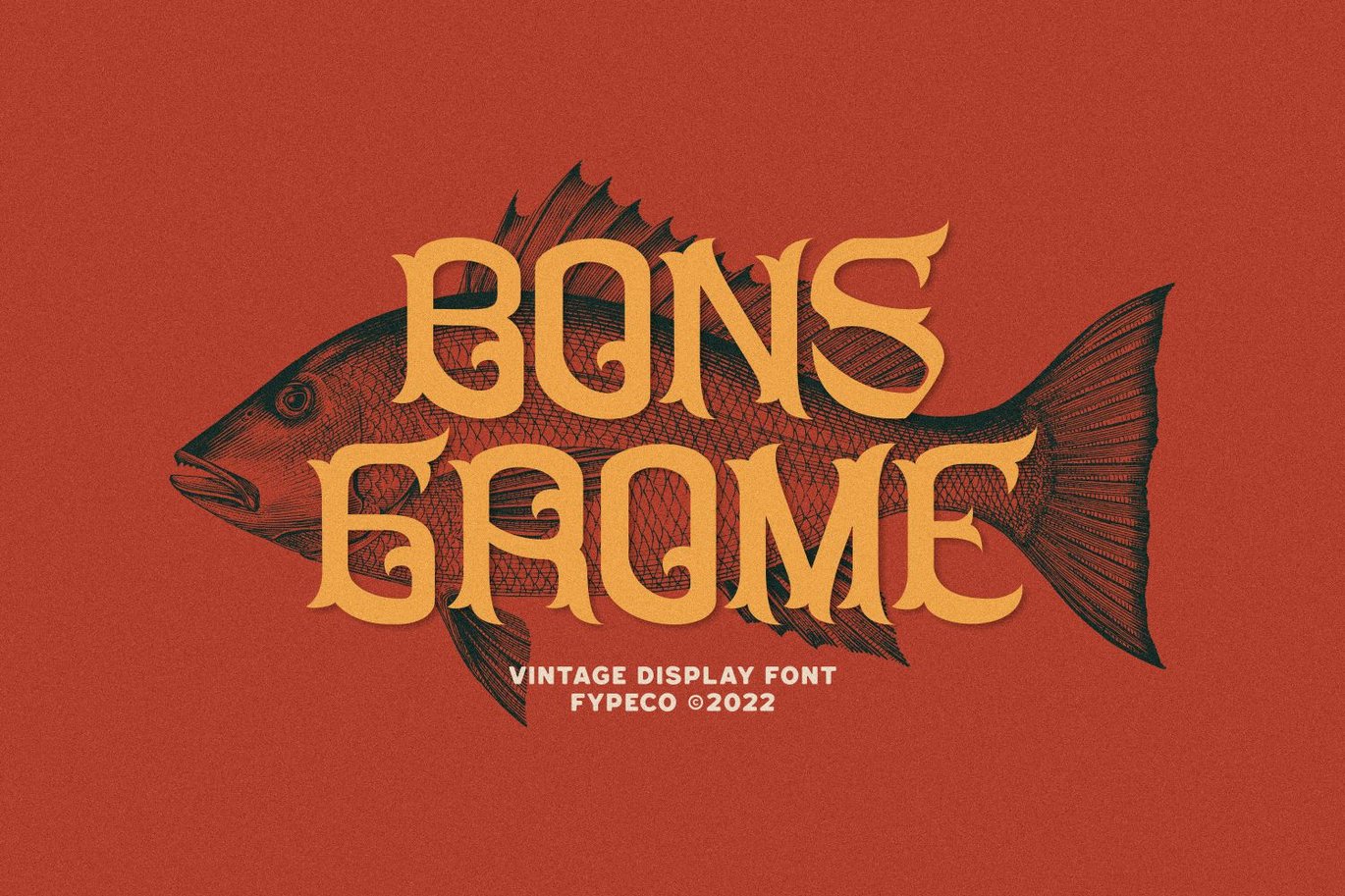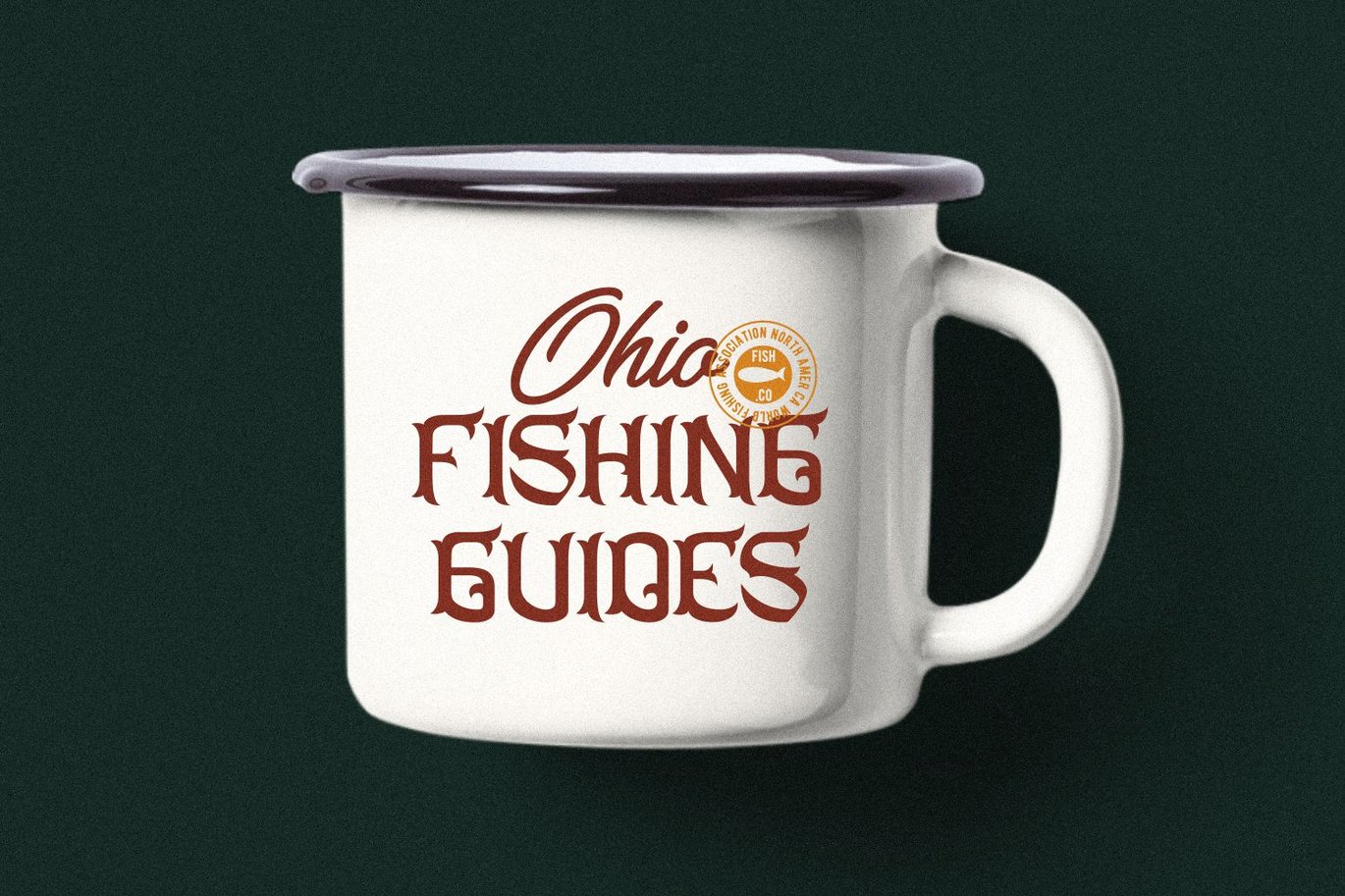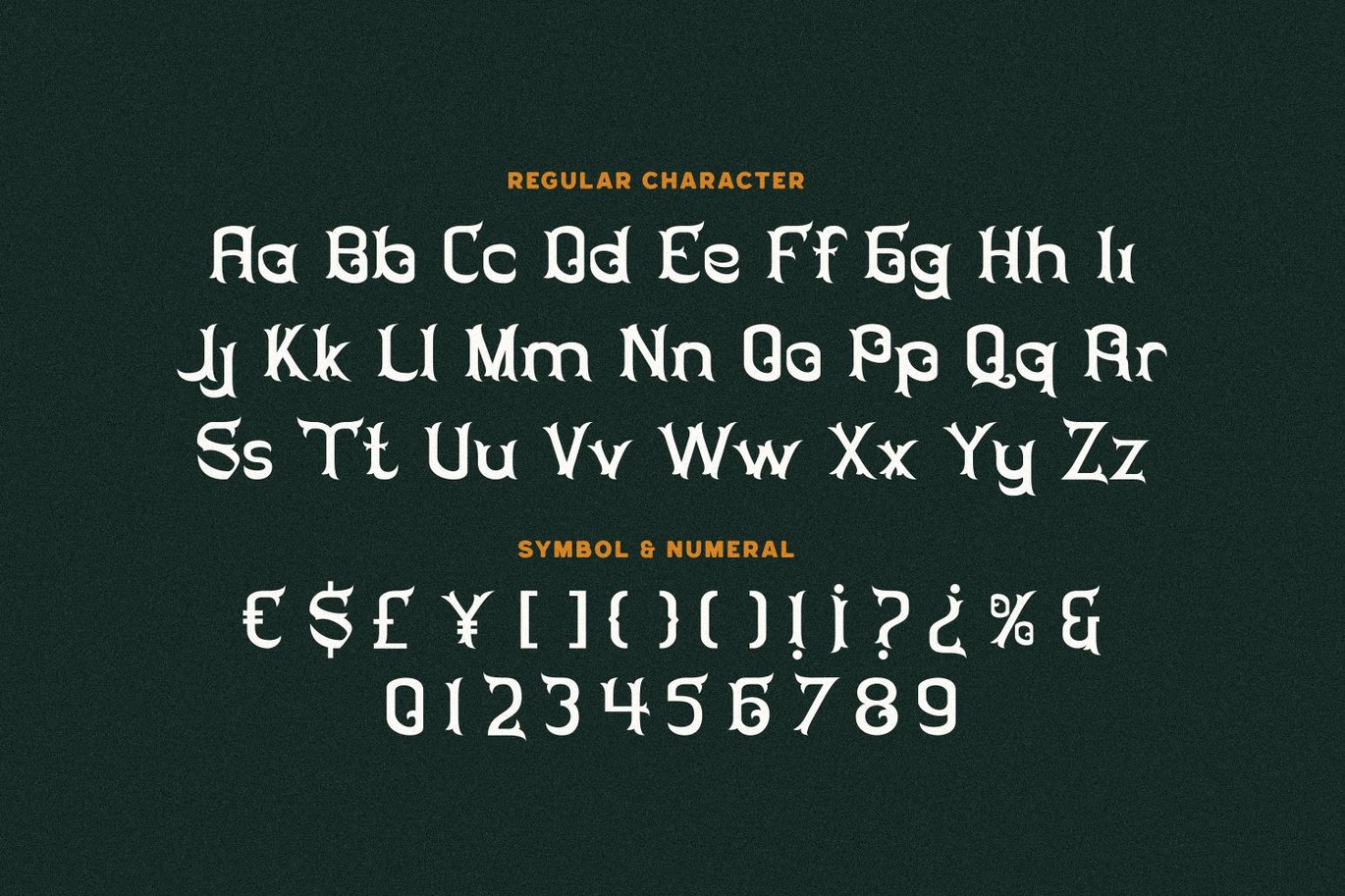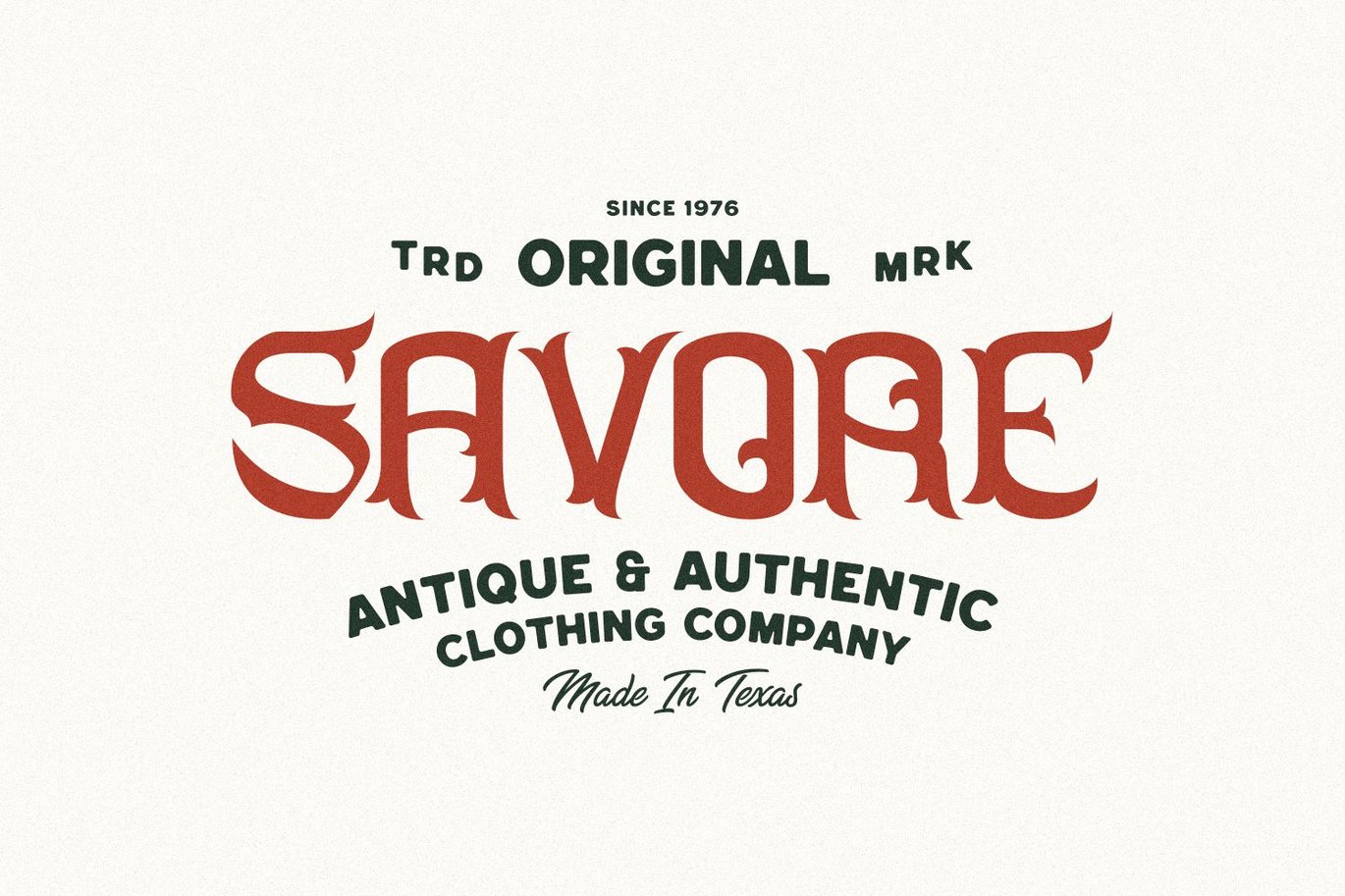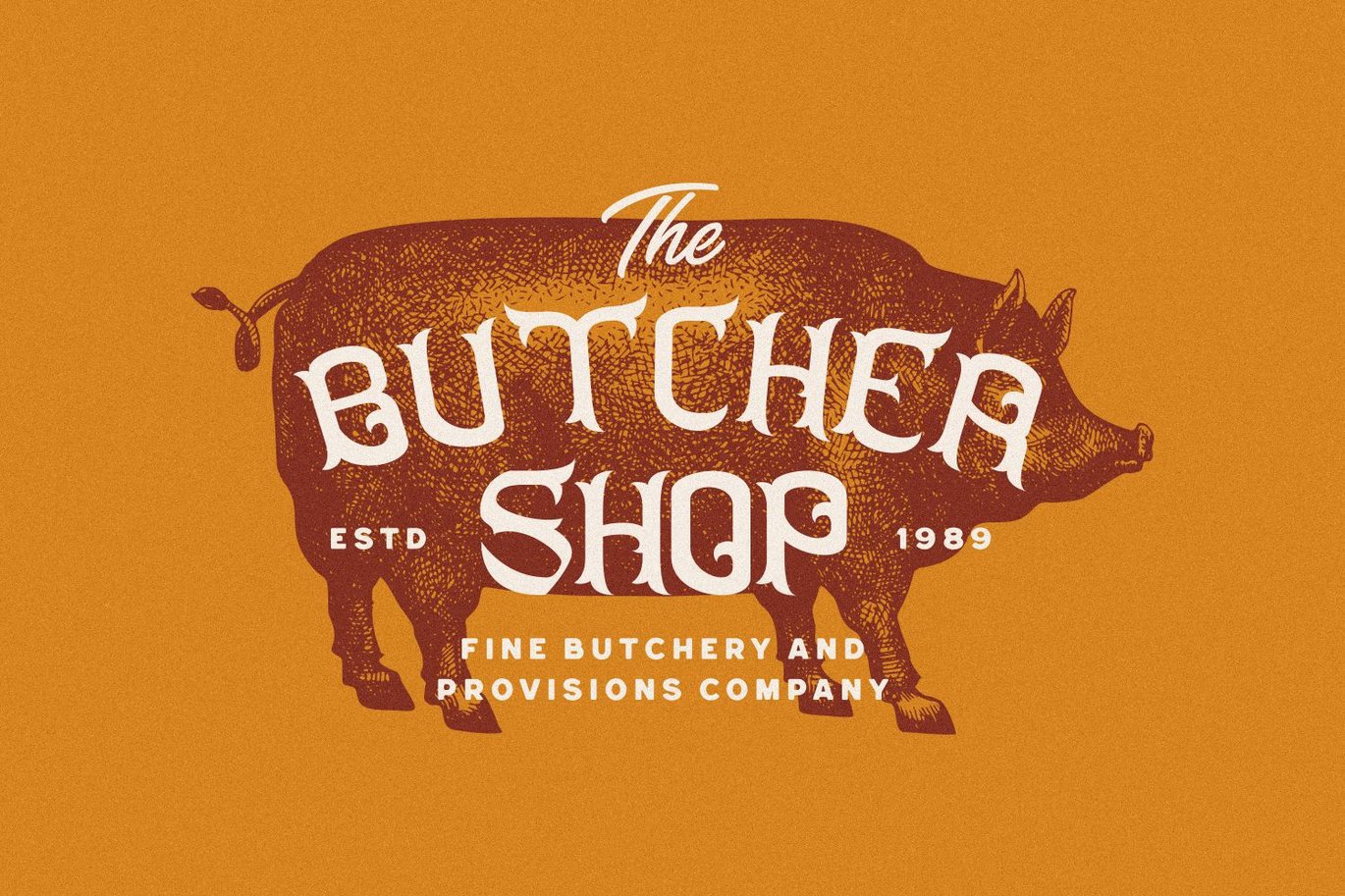
Bons Grome – Medieval Font
Bons Grome is a vintage display font with handmade style. This font that would be perfect to combine in your design, especially on vintage design.
Font Features
-Uppercase
-Lowercase
-Numerals & Punctuation
-Multilingual Support